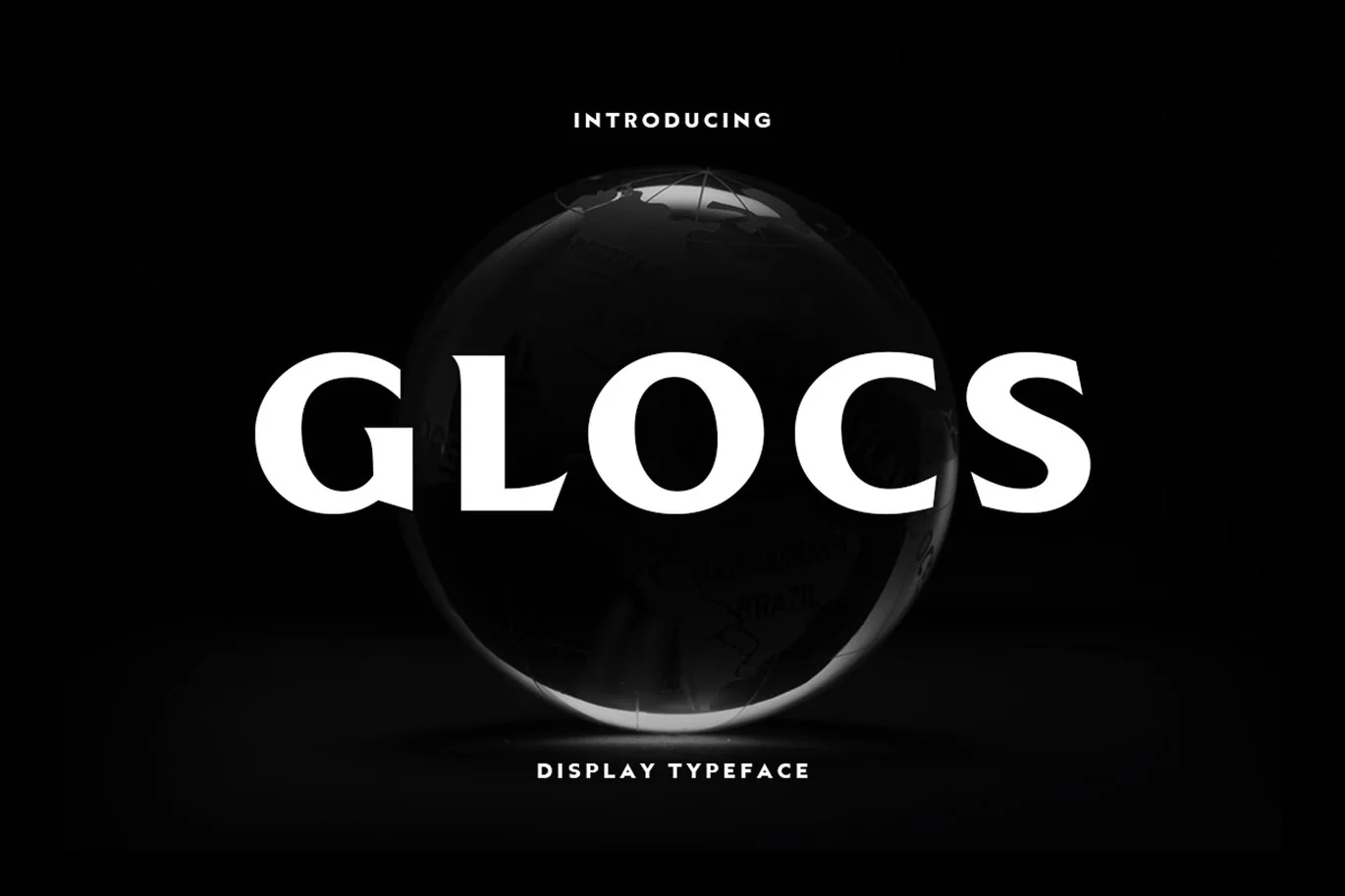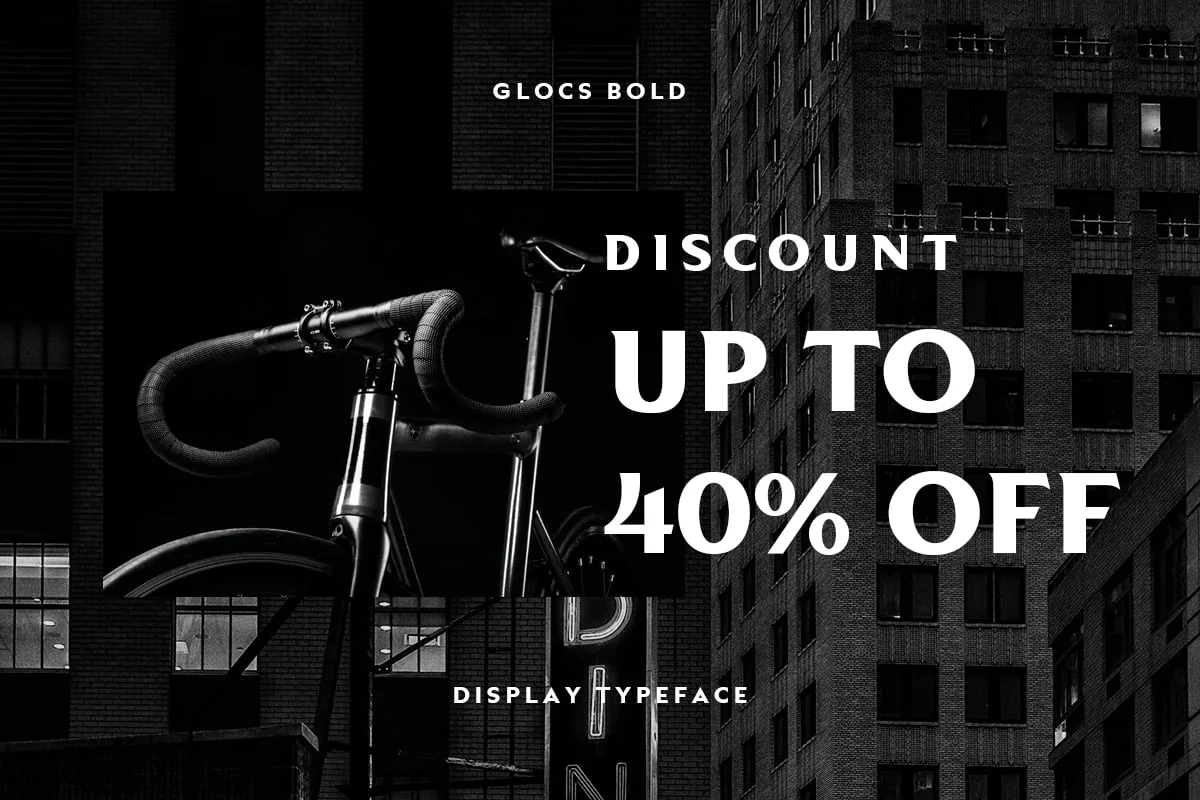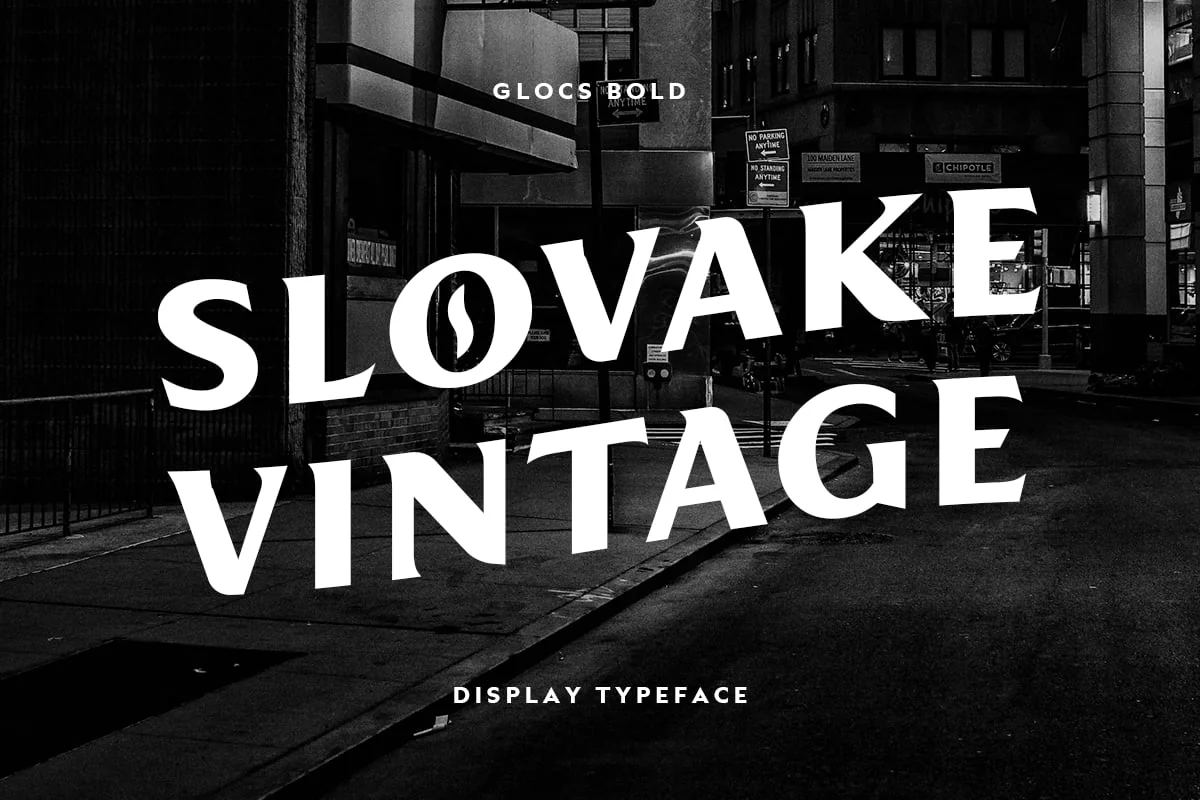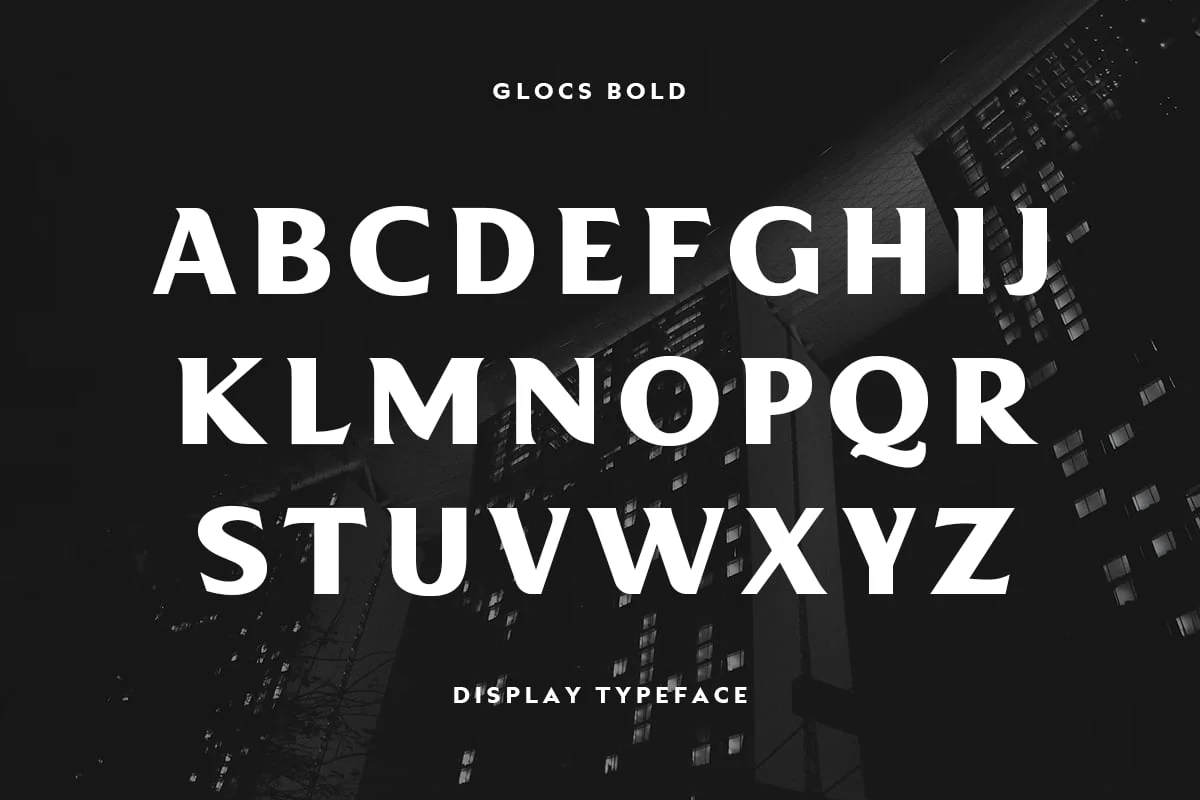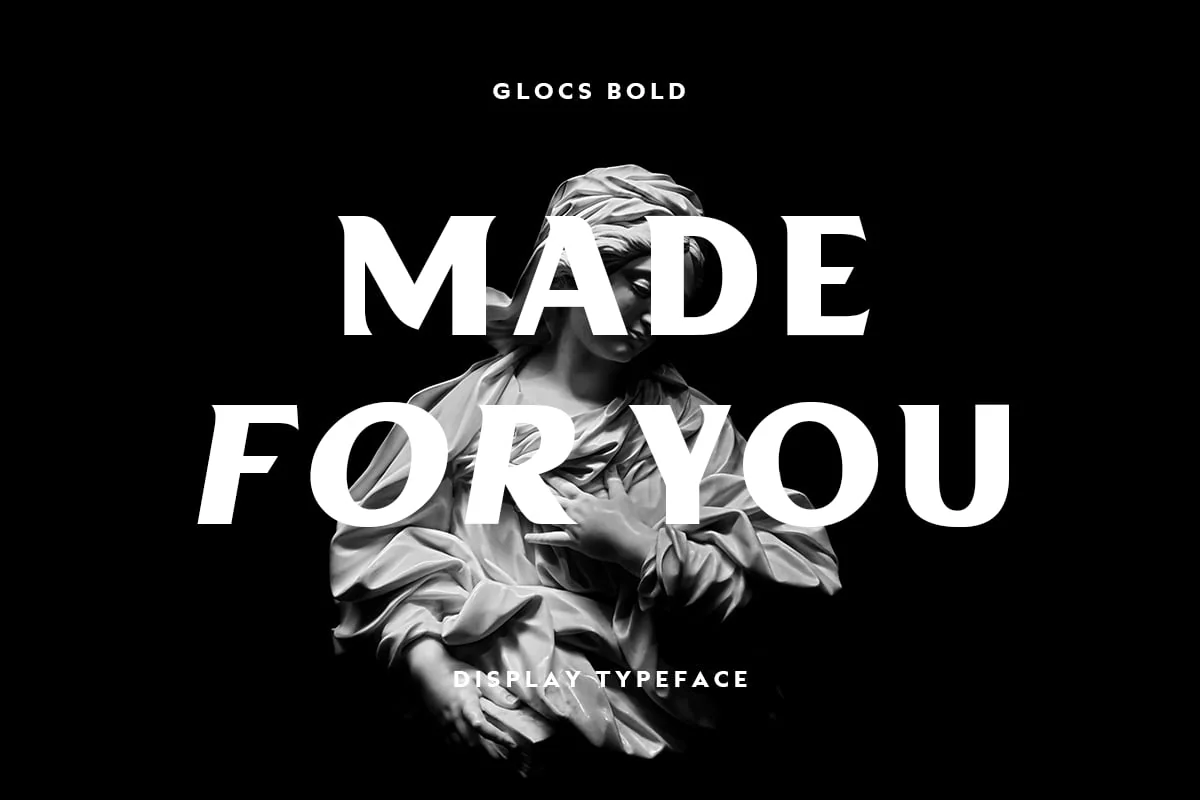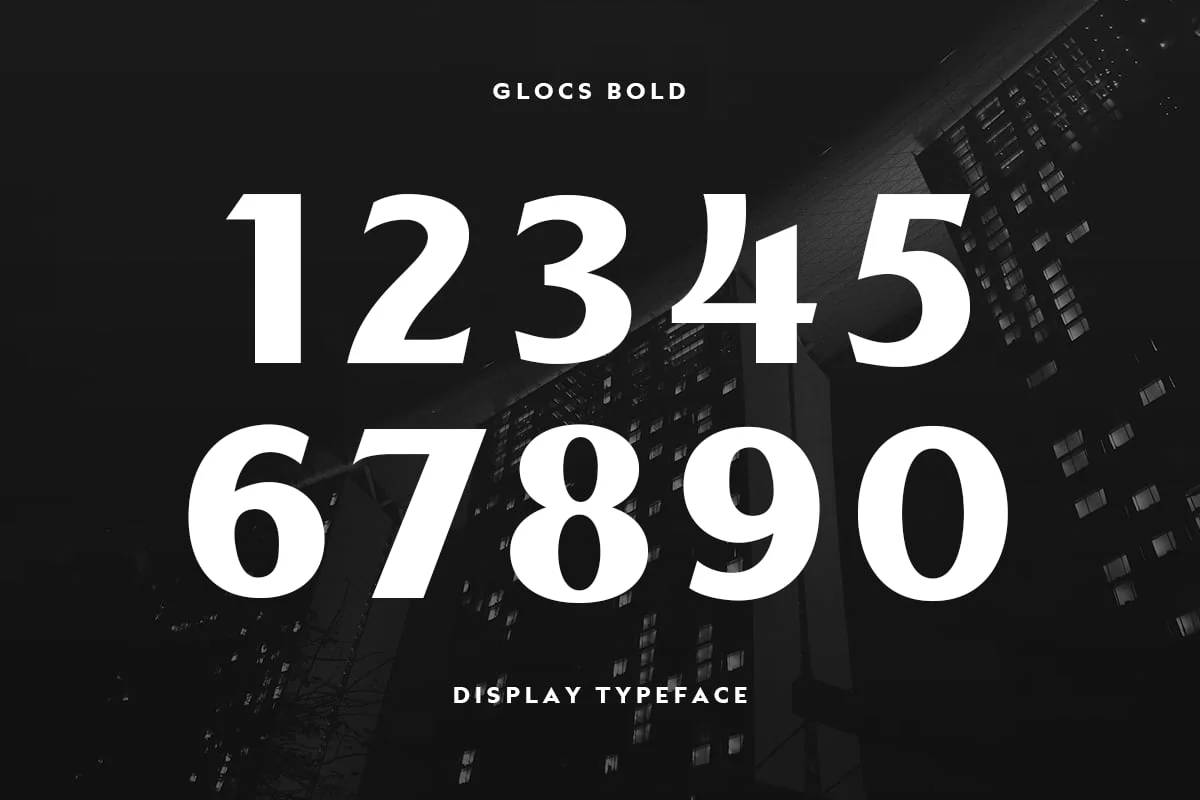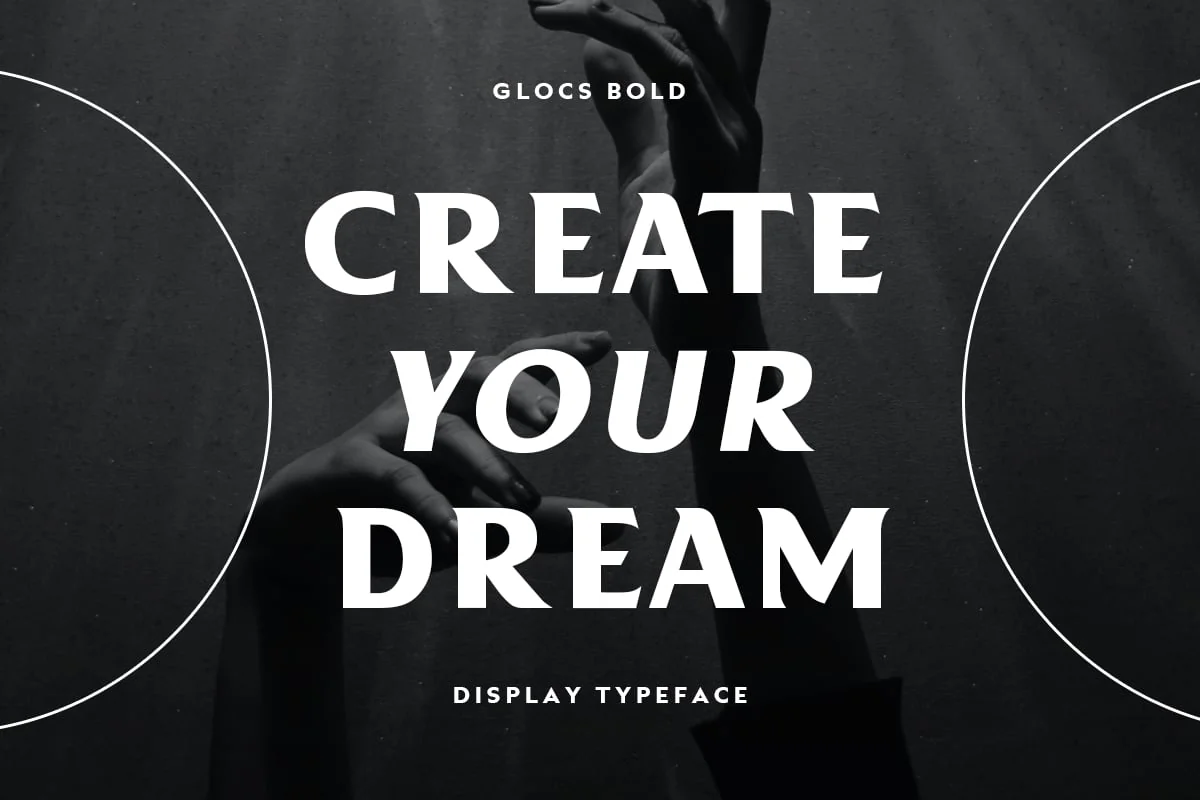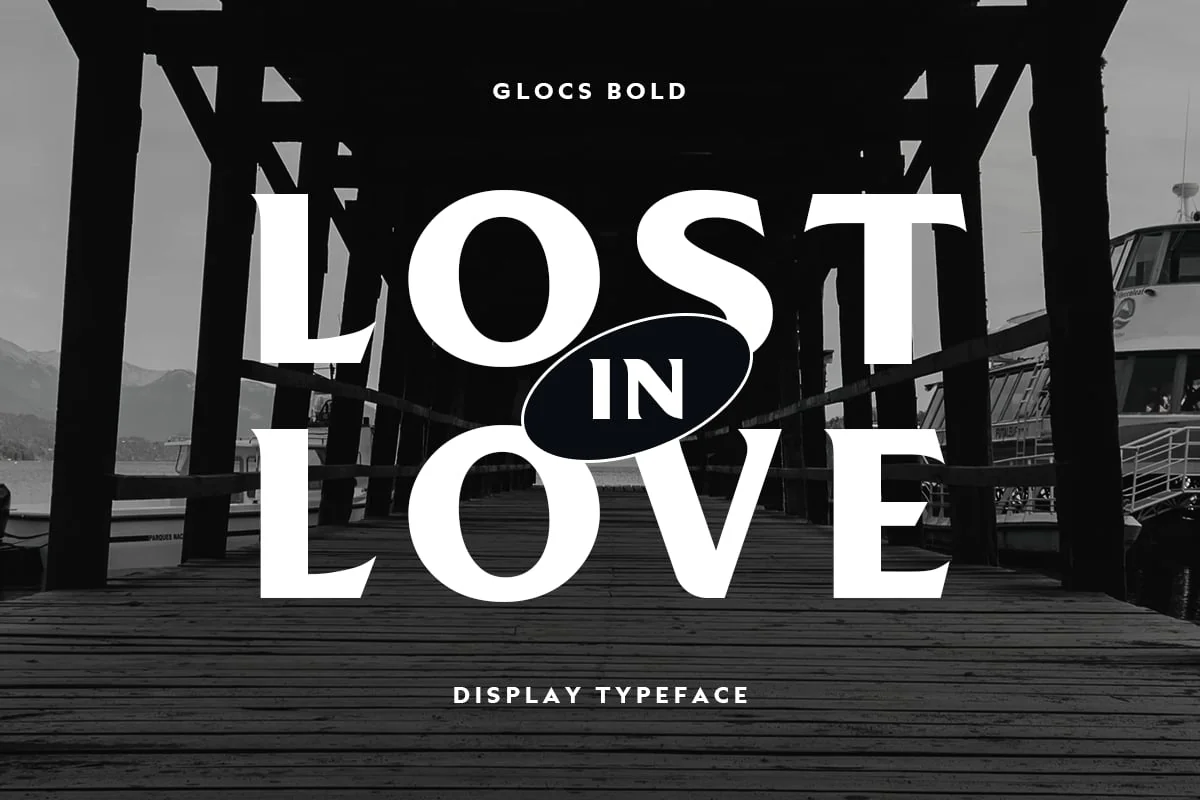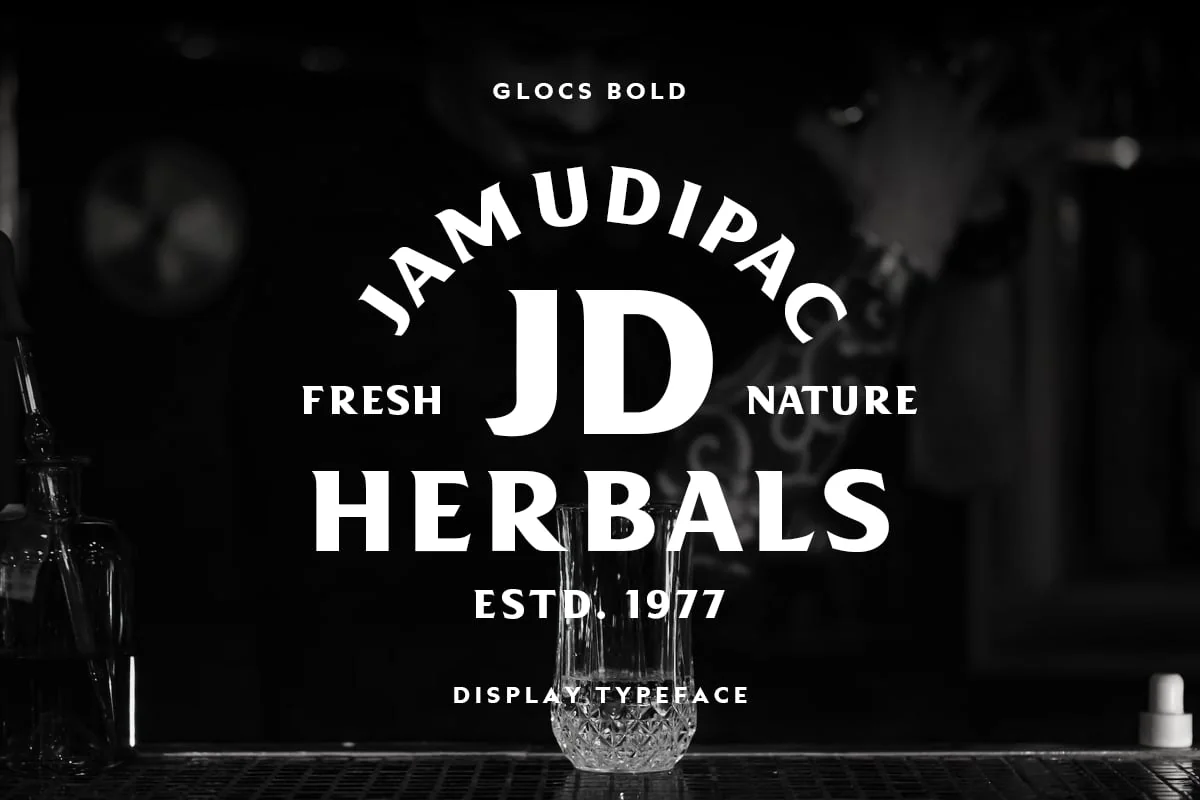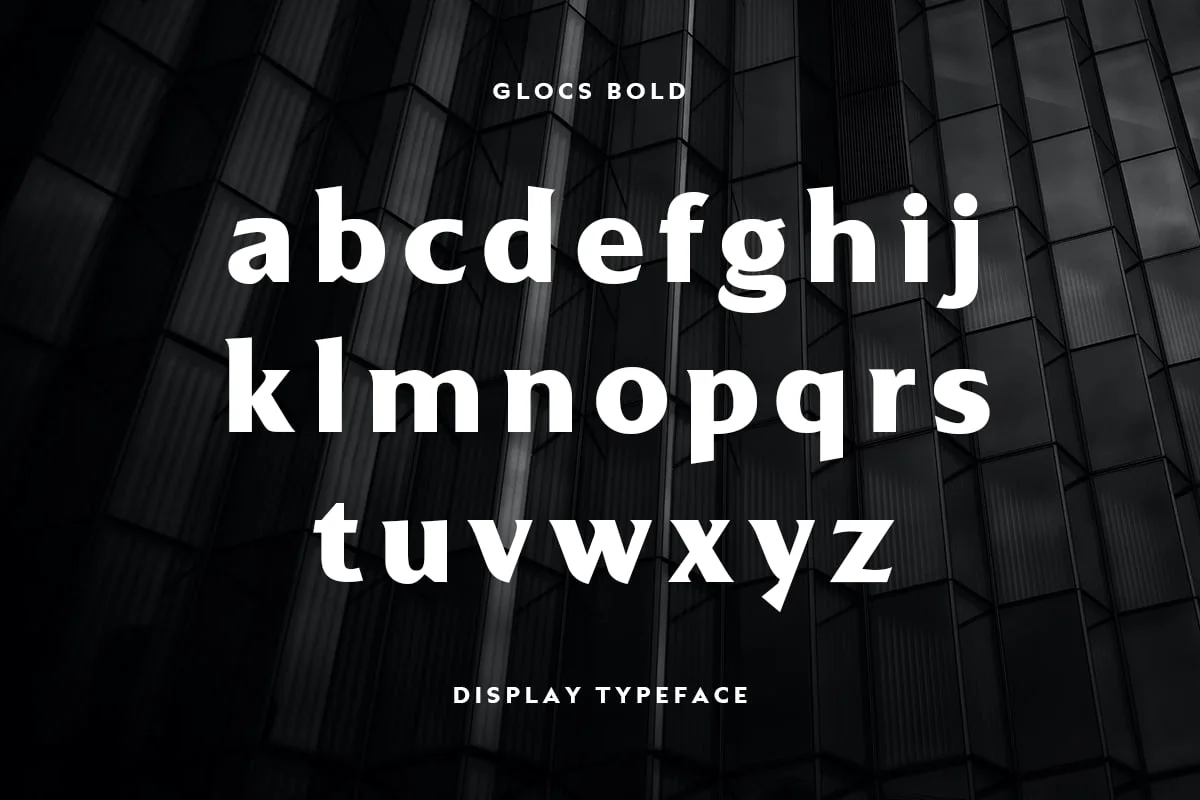
Glocs Vintage Font
Glocs is the perfect font for anyone looking to add some vintage flair to their designs. So if you’re looking to make a statement with your work, then this is the font for you!
Glocs is the perfect font for those who appreciate vintage style with a modern touch. It’s perfect for creating unique and stylish designs for t-shirts, logos, badges, and more.
- Glocs Vintage Modern is one font you need
- Multilingual support and complete character set